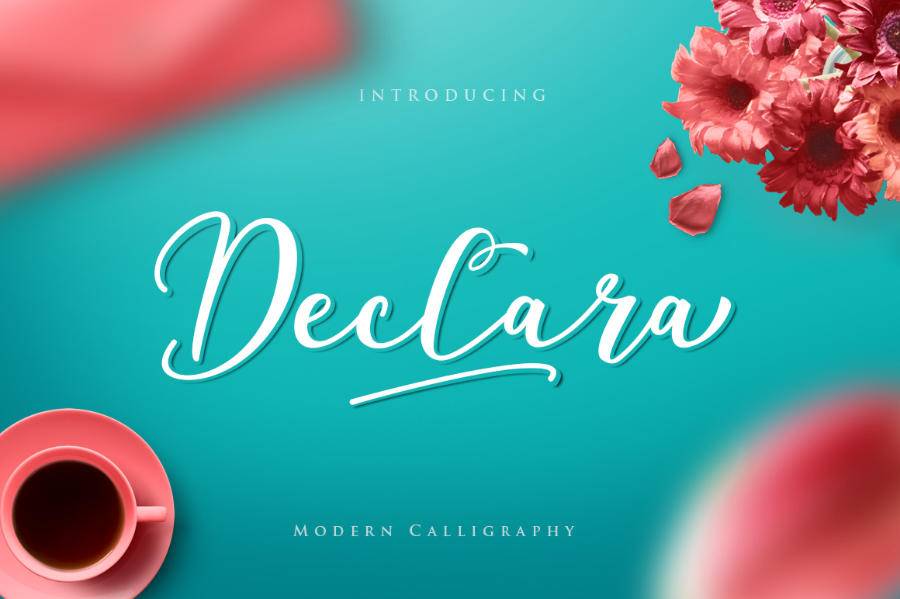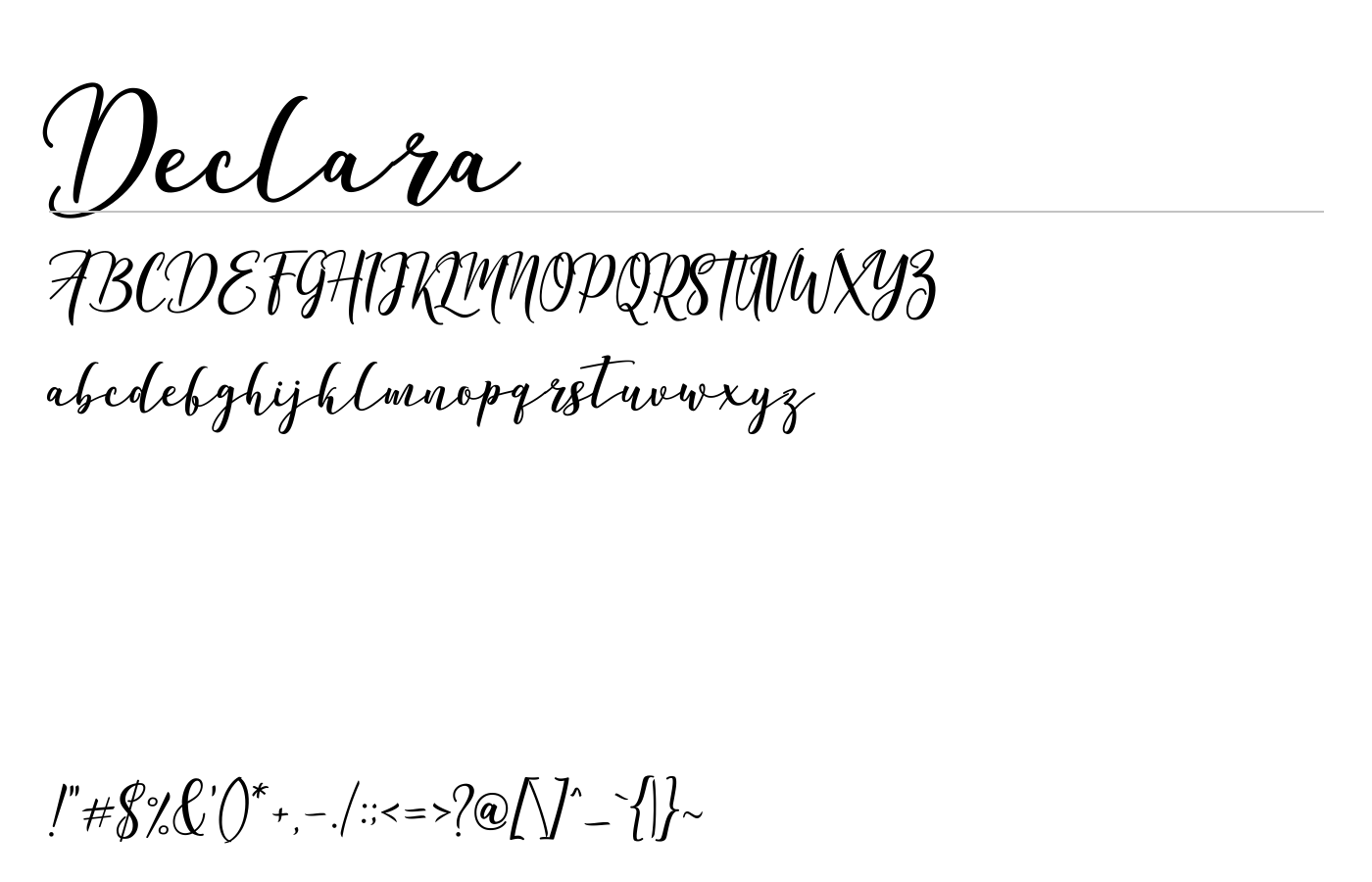
Declara Script is an elegant and flowing script font with a balanced mix of smooth curves and refined strokes, giving it a graceful yet approachable feel. Its moderate weight and moderately high x-height make it readable in display sizes, while the handwritten style adds a personal and artistic touch, ideal for invitations, branding, and creative projects seeking a modern yet classic handwritten flair.
Declara Script Demo Font
About Declara Script Demo Font